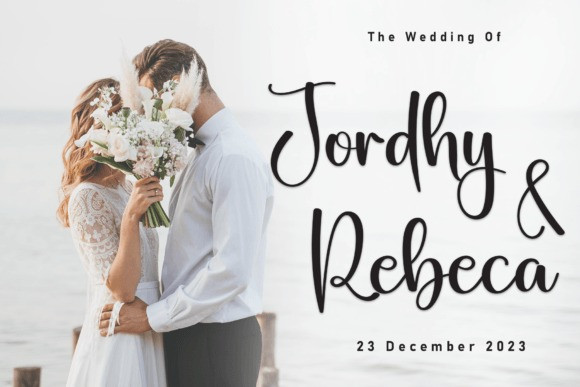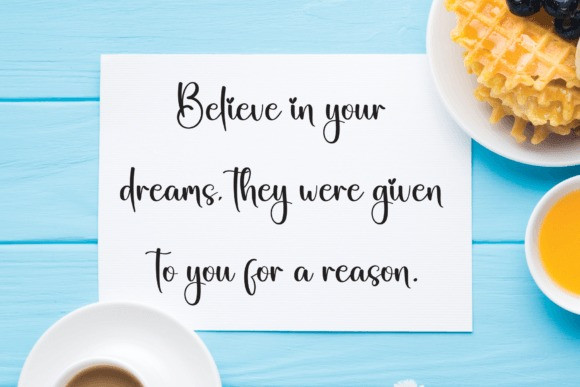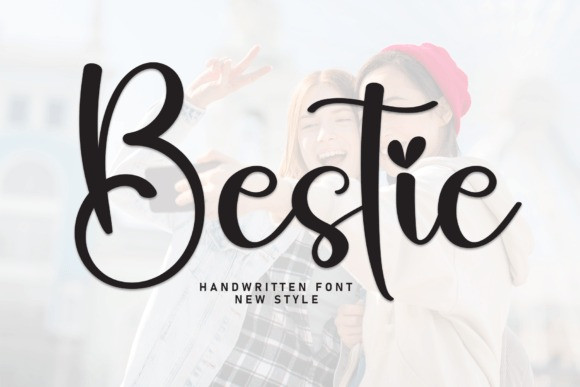
Bestie Script Type
Bestie Script Type is a sweet and friendly handwritten font. Its natural and unique style makes it incredibly fitting to a large pool of designs. The only limit is your imagination!